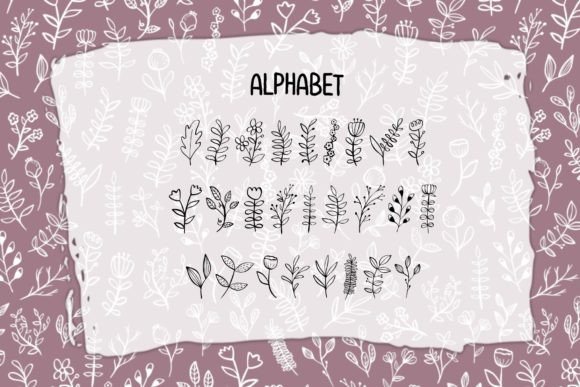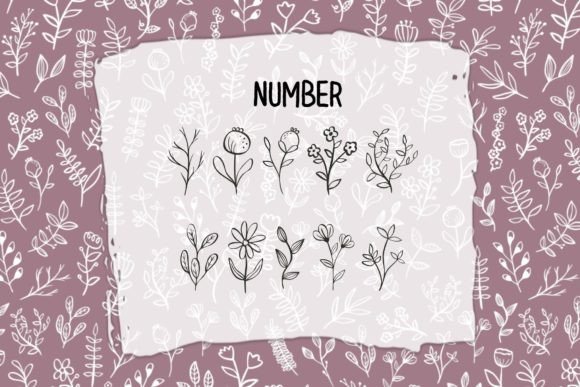
Logos can benefit from the Happy Flores font by incorporating the unique and charming floral symbols as part of the brand identity. Whether you’re designing a logo for a floral shop, a gardening business, or any other nature-related brand, the font’s symbols can add a touch of fun and creativity to the design.
Wall art and signs can be enhanced with the Happy Flores font. Use the floral and nature symbols to create decorative elements or focal points in your artwork. Whether it’s a mural, a signboard, or a poster, the font’s symbols can add a playful and eye-catching element to the design.
Cards, including greeting cards, invitations, or thank-you cards, can be made more special with the Happy Flores font. Incorporate the font’s symbols to create borders, embellishments, or focal points that convey a joyful and whimsical vibe. The floral symbols can also be used to enhance designs for art prints or stationery.
T-shirts and apparel designs can benefit from the Happy Flores font. Use the symbols to create unique and eye-catching designs that stand out. Whether it’s a single symbol as a centerpiece or a combination of symbols to create a pattern or illustration, the font’s playful and funny nature will add a touch of charm to your designs.
Coloring pages become more enjoyable with the Happy Flores font. Create coloring books or printable pages with the font’s symbols as the main elements to be colored. The whimsical and fun nature of the symbols will make coloring sessions even more entertaining for both kids and adults.
In summary, Happy Flores font is a funny and versatile dingbats font that can add a playful and whimsical touch to your designs. Whether you’re creating logos, wall art, signs, cards, art prints, t-shirts, coloring pages, or any other creative project, the font’s floral and nature symbols will bring joy and creativity to your designs. So go ahead and incorporate the Happy Flores font into your projects and let its delightful symbols make your designs stand out!